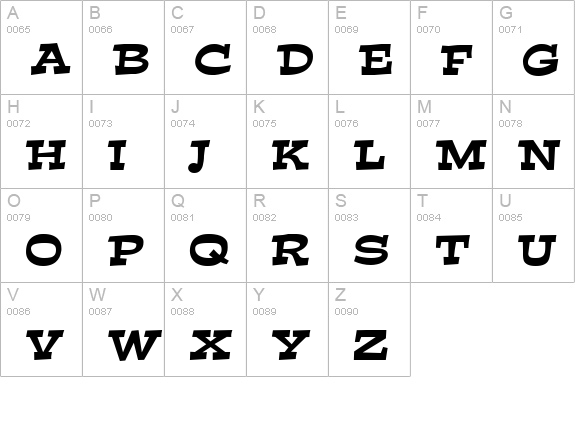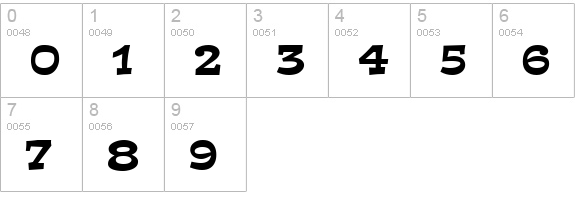
Expose Wide Bold is a strong, high-contrast, extended-width variant in the Expose typeface family \xE2\x80\x94 well suited to headlines, attention-grabbing titles, and strong calls-to-action.
Introducing Expose Wide Bold font - a striking and modern typeface that demands attention with its bold and wide design. This font is perfect for making a statement in headlines, posters, and branding projects. With its clean lines and strong presence, Expose Wide Bold exudes confidence and sophistication. What's even better is that Expose Wide Bold font is available for free download at FontsMarket.com. Whether you're a designer looking to add a touch of boldness to your projects or a business owner seeking a distinctive font for your branding, Expose Wide Bold is the perfect choice. Download it today and unleash the power of this eye-catching font in your designs.